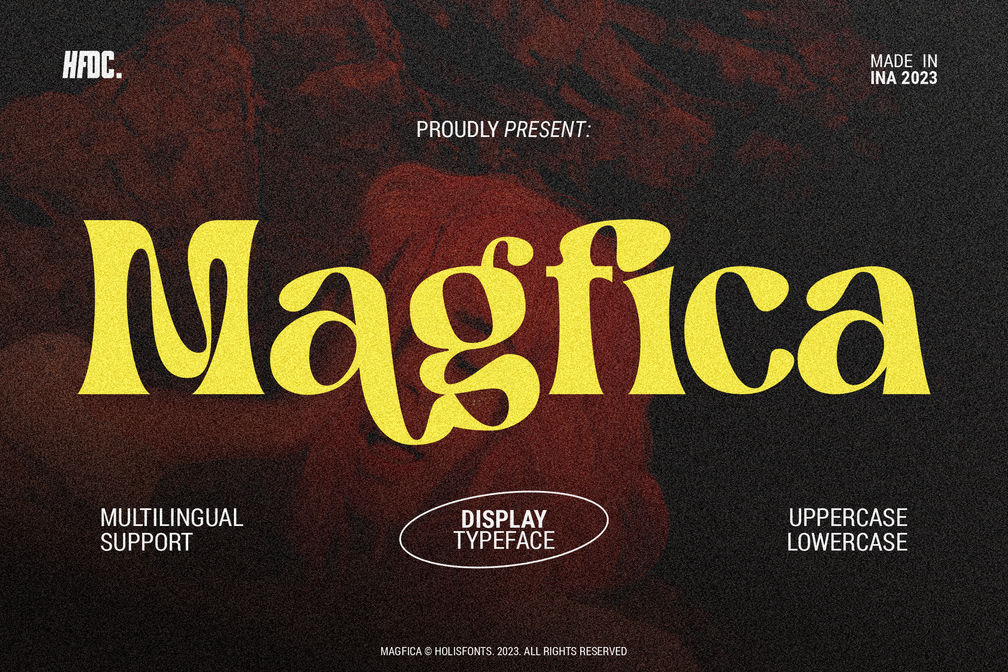
- Magfica Display Font
Magfica is a font designed with a unique style as a display font, with characters that are full of smooth curves, bold, suitable for logos, headlines, poster designs and others.
- Uppercase and lowercase
- Numeral
- Punctuation and symbols
- Alternates
- Multilingual Support